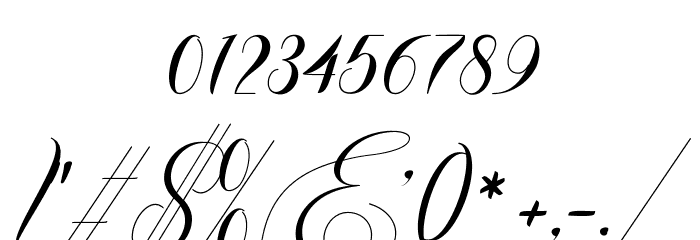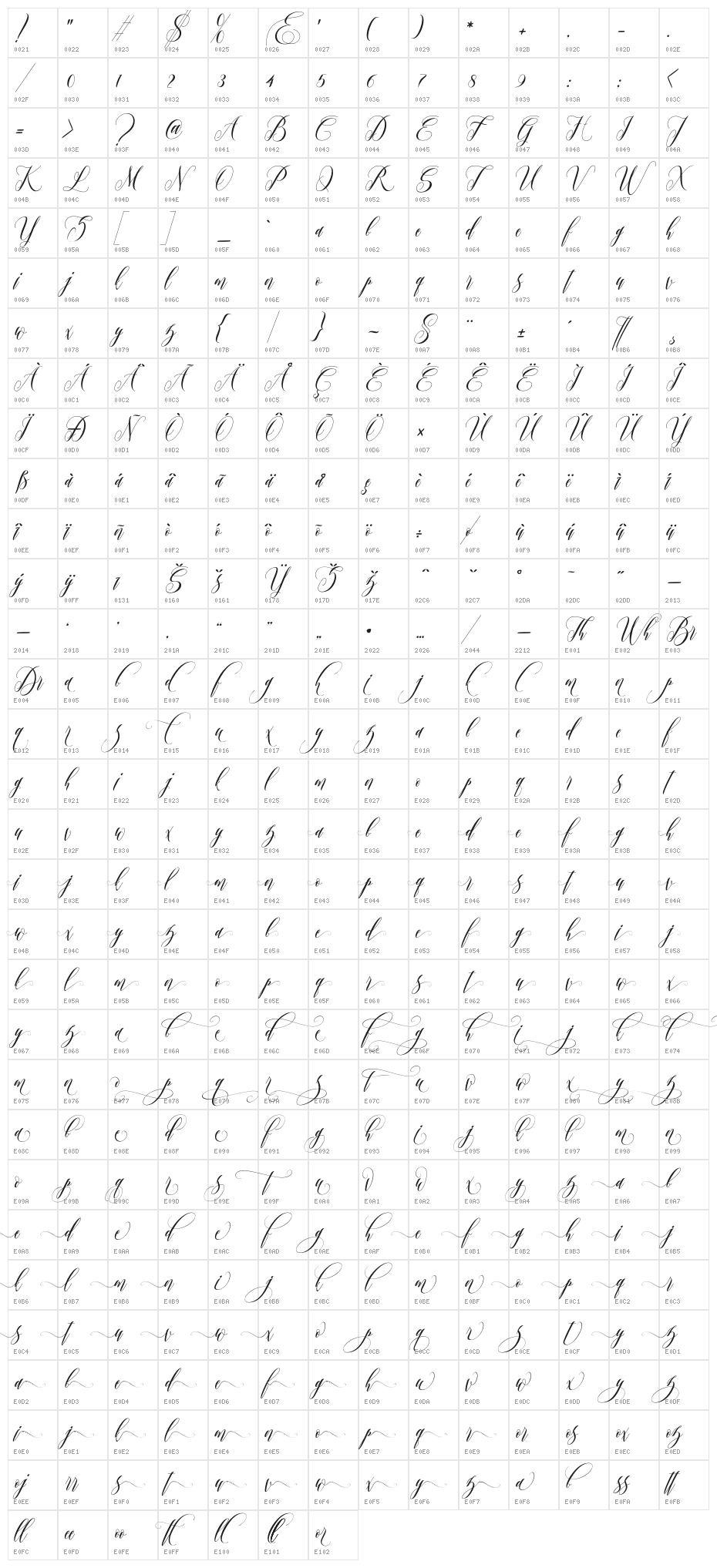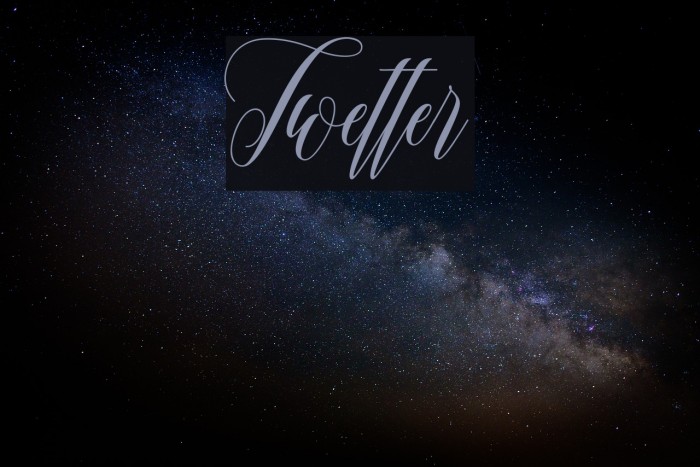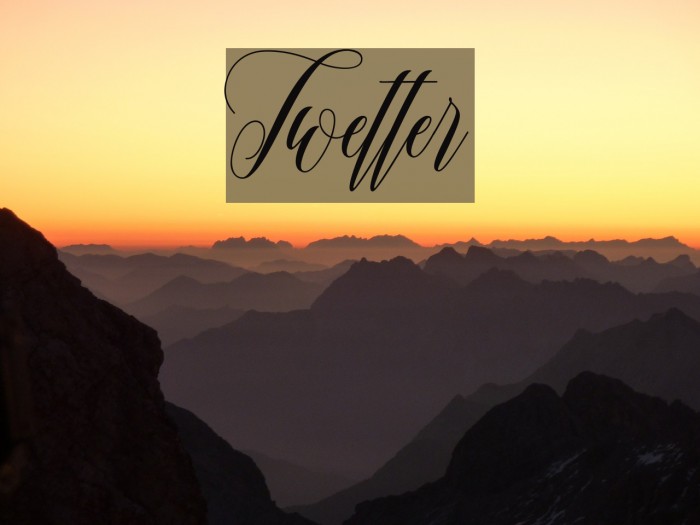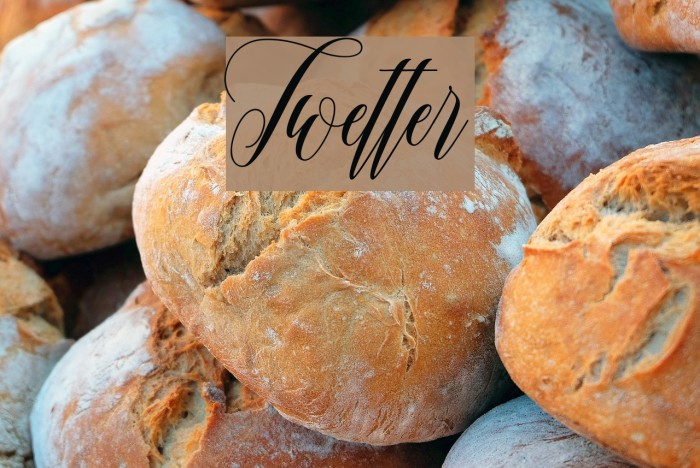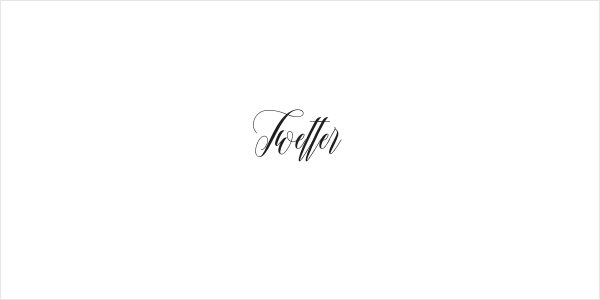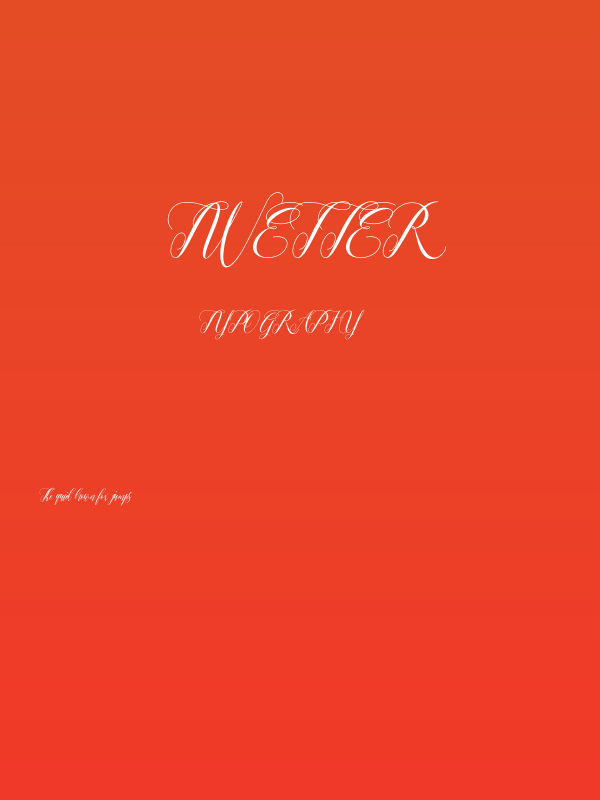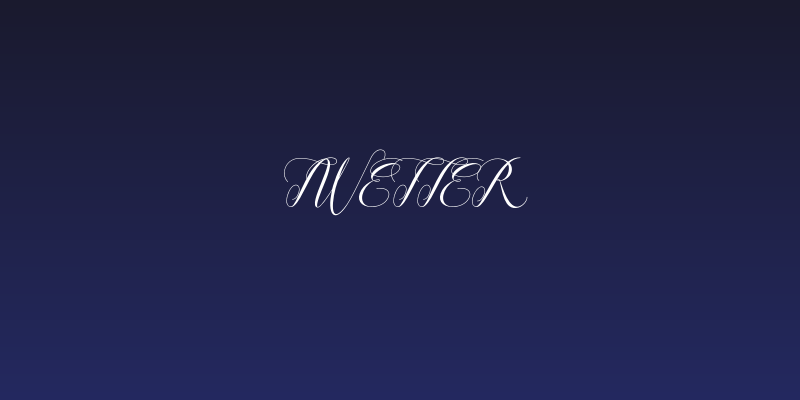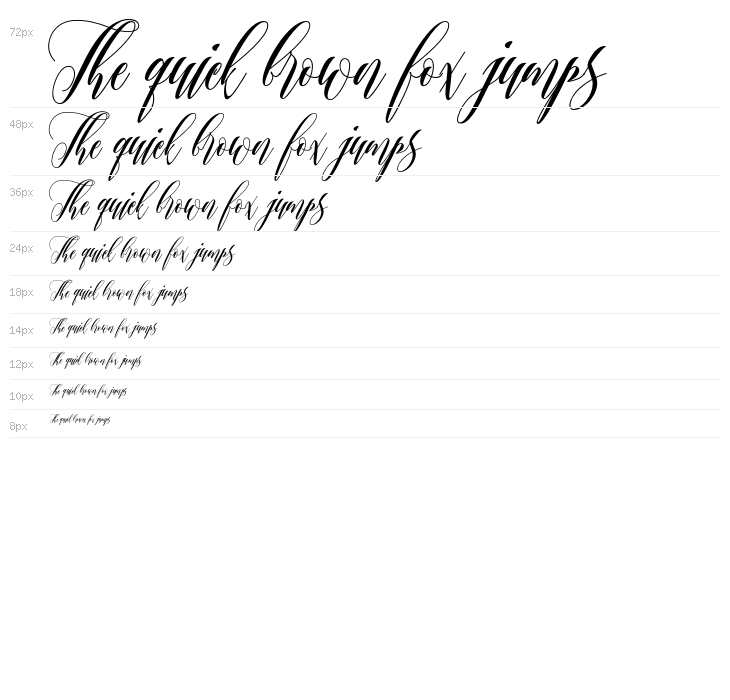
Twetter Font
Twetter Description
This elegant script font features fluid, interconnected strokes that give it a sophisticated and graceful appearance. The uppercase letters are characterized by their tall, looping ascenders and descenders, creating a sense of movement and flow. The lowercase letters maintain a consistent style, with smooth curves and a slightly slanted orientation. The numerals and special characters are designed to complement the overall aesthetic, with similar flourishes and attention to detail. This font exudes a sense of luxury and refinement, making it ideal for formal invitations, branding, and decorative purposes.
Overall StyleElegant, Decorative
Use CaseInvitations, Branding, Decorative text
Proposed ProjectsIdeal for wedding invitations, luxury branding, elegant stationery, and decorative signage.